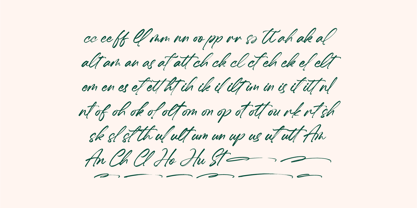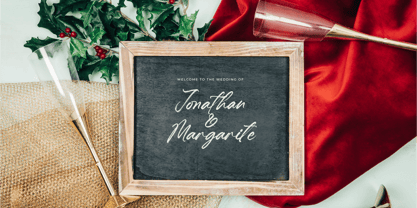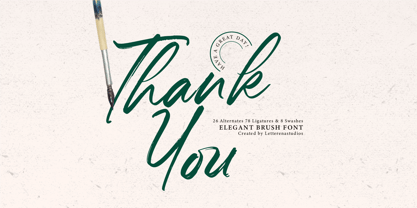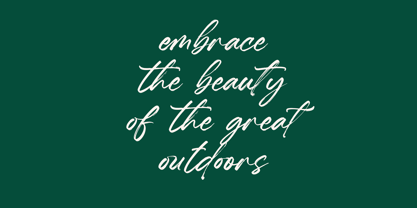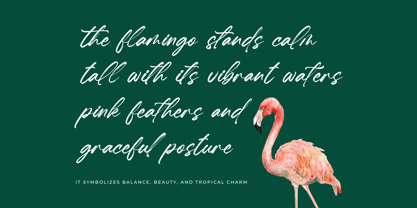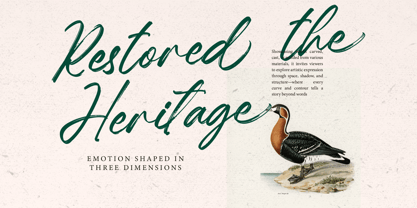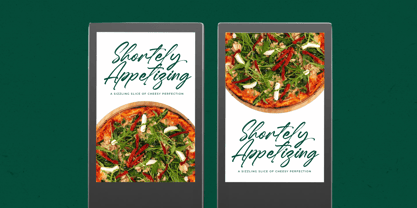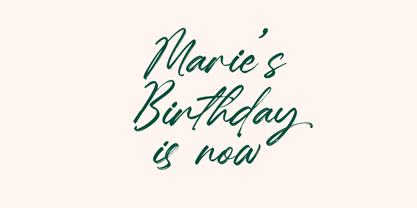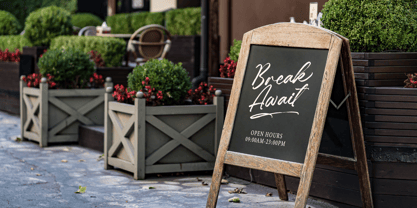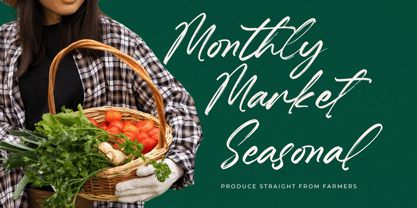
Hugetta Amphals
by Letterena Studios
The Hugetta Amphals Font Family was designed by Heru Utama Putra and published by Letterena Studios. Hugetta Amphals contains 2 styles and family package options. More about this family
Hugetta Amphals - Elegant Brush Font , from Letterena, is a Luxury Script font, suitable for any projects such as: logos, branding projects, homeware designs, product packaging, mugs, quotes, posters, shopping bags, t-shirts, book covers, name card, invitation cards, greeting cards, label, photography, watermark, special events, and all your other luxury and beautiful projects that need a Luxury Script taste.